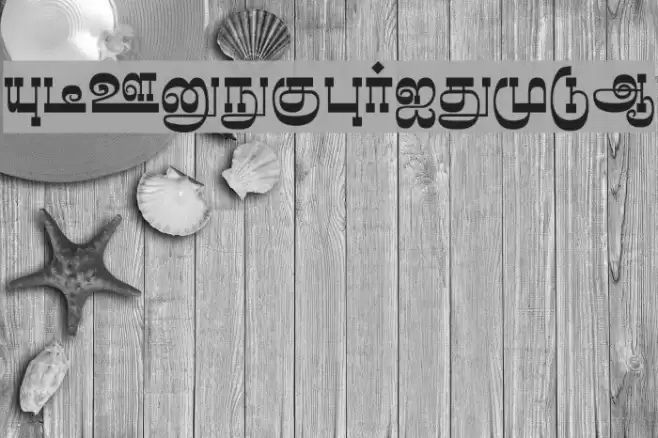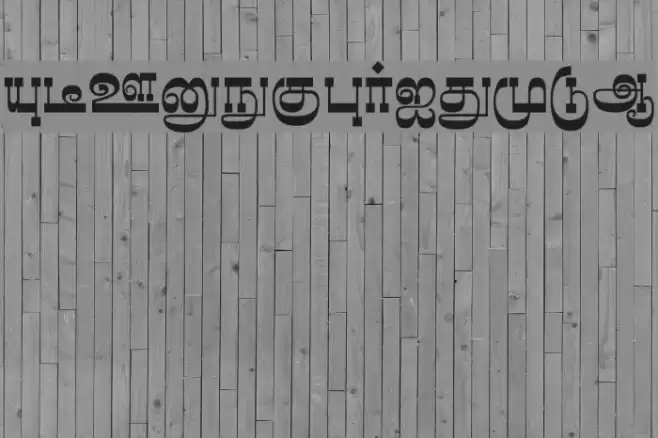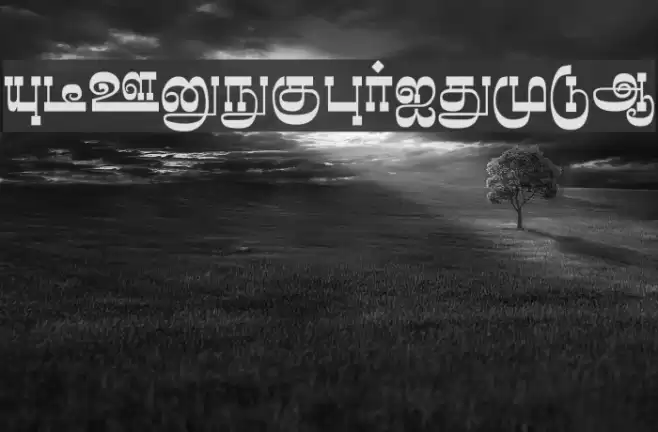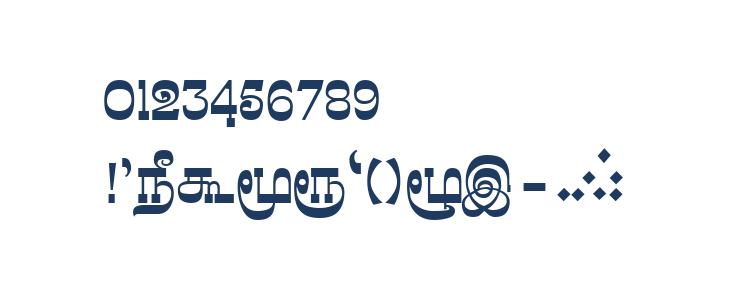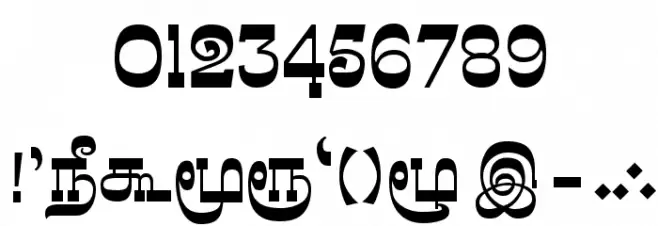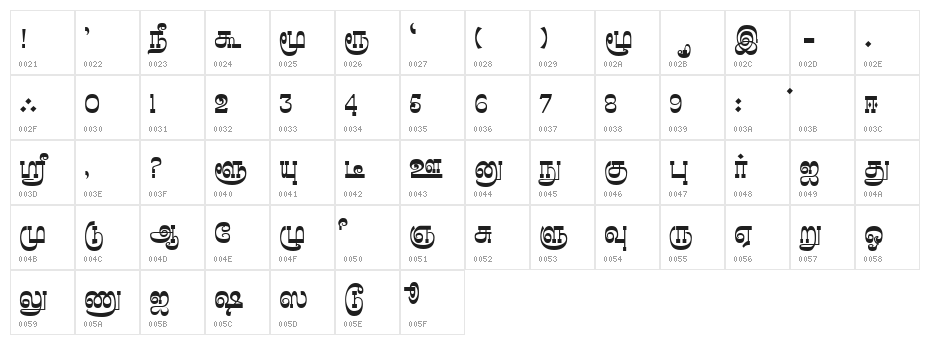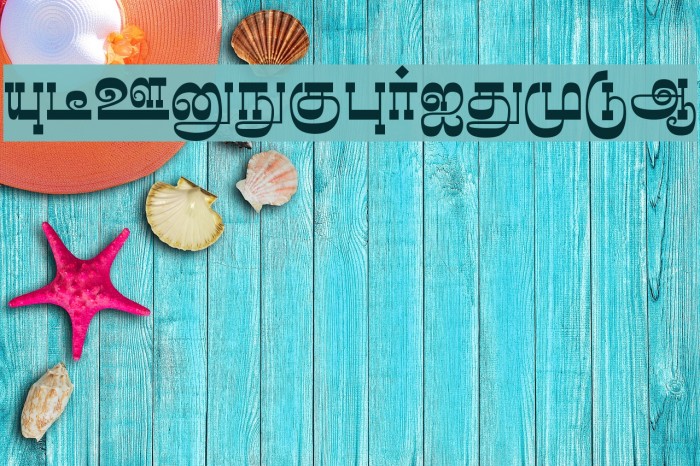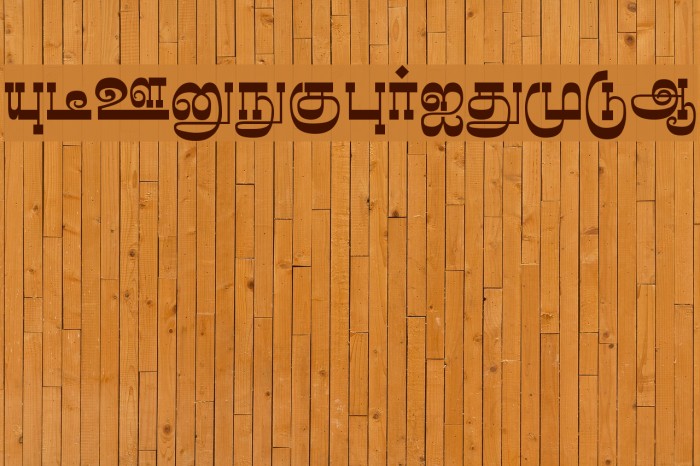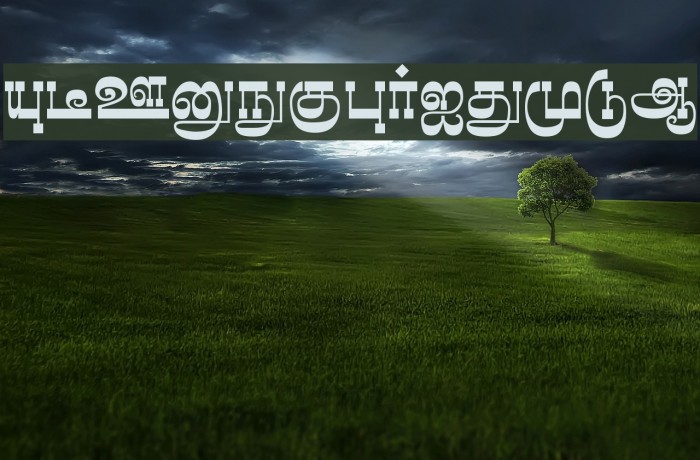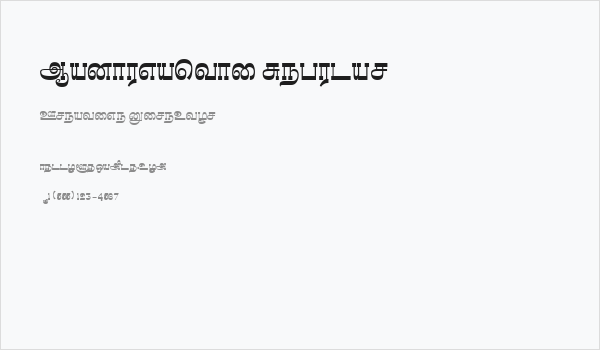
Madhuvanthi Regular Font
Madhuvanthi Regular Description
This font features a bold and decorative style with intricate detailing that is characteristic of traditional Indian scripts. The characters are rounded with a distinct flair, incorporating both thick and thin strokes that create a dynamic visual contrast. The numerals are bold and clear, maintaining the decorative essence of the script. Special characters are uniquely styled, adding to the font's overall ornamental appearance. The font is well-suited for cultural and artistic projects, offering a blend of traditional aesthetics with modern readability.
A bold, decorative font with intricate detailing and dynamic contrast from Uncategorized fonts.
- Proposed Projects: Ideal for cultural projects, artistic displays, invitations, and branding that seeks a traditional yet modern aesthetic.
- Overall Style: Traditional, Decorative
- Use Case: Headlines, Artistic displays, Cultural projects